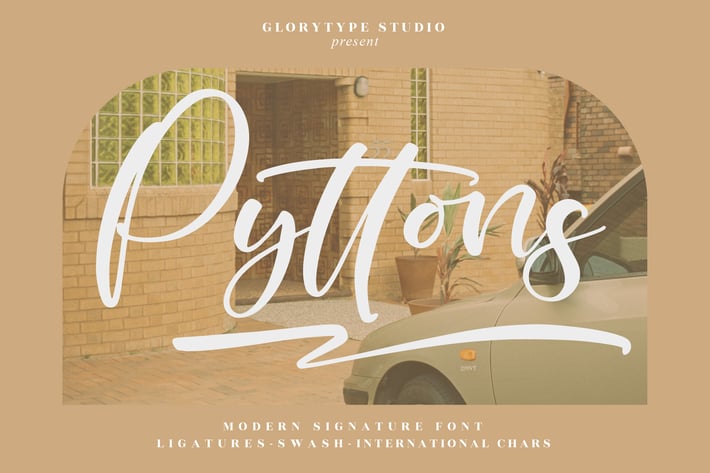
Pyttons Modern Signature Font
Pyttons is a modern signature font that blends smooth handwritten strokes with bold, clean forms—perfect for designs that need a confident, personal touch. The set includes stylish letterforms, flowing swashes, and natural ligatures so your titles, logos, and quotes look truly custom straight out of the box.
+ Natural signature script with balanced contrast and rhythm
+ OpenType ligatures & alternates for authentic hand-signed flow
+ Beginning/ending swashes to polish logos and headlines
+ Full multilingual support (international characters)
+ Complete punctuation & numerals for everyday layouts
+ Signature logos & personal branding
+ Social media posts, highlights, and banners
+ Wedding suites (invites, place cards, thank-you notes)
+ Product packaging & label design
+ Watermarks for photographers & creatives
+ Editorial titles and pull quotes
+ Business cards & stationery
Give your name the look of a real signature—instantly.
Design by Glorytype Studio